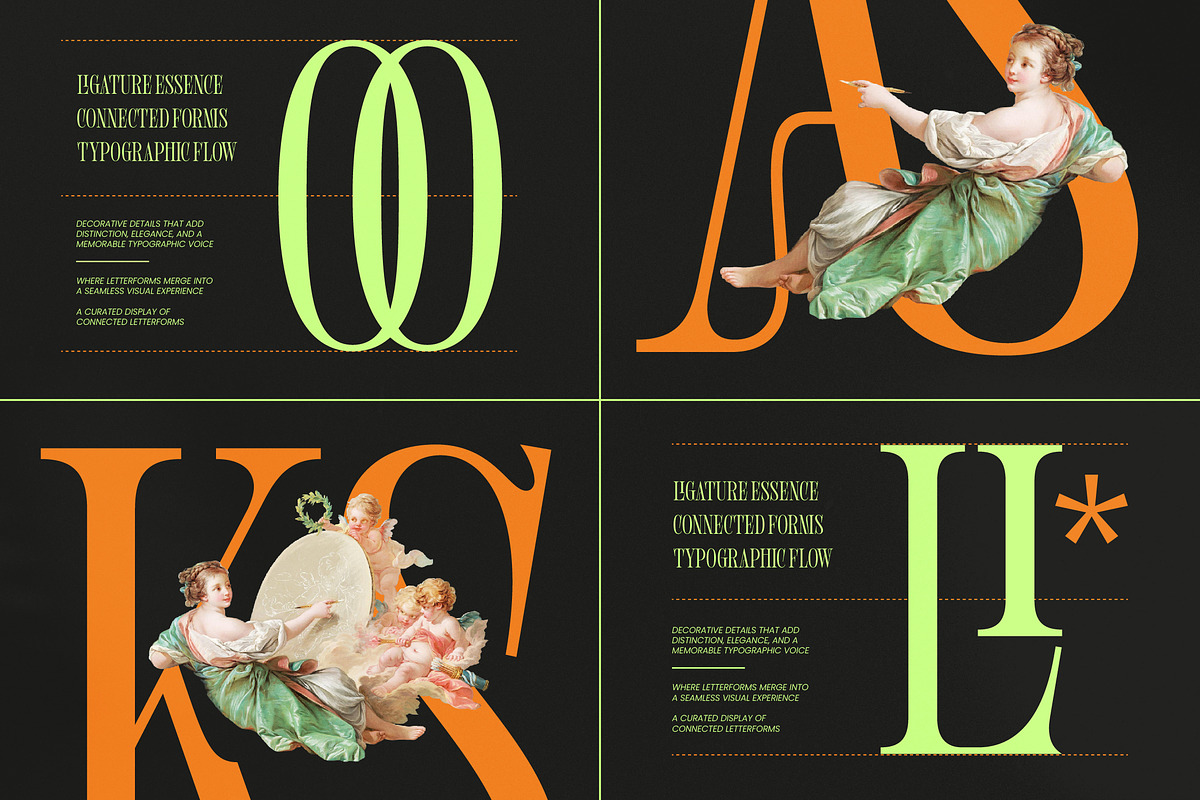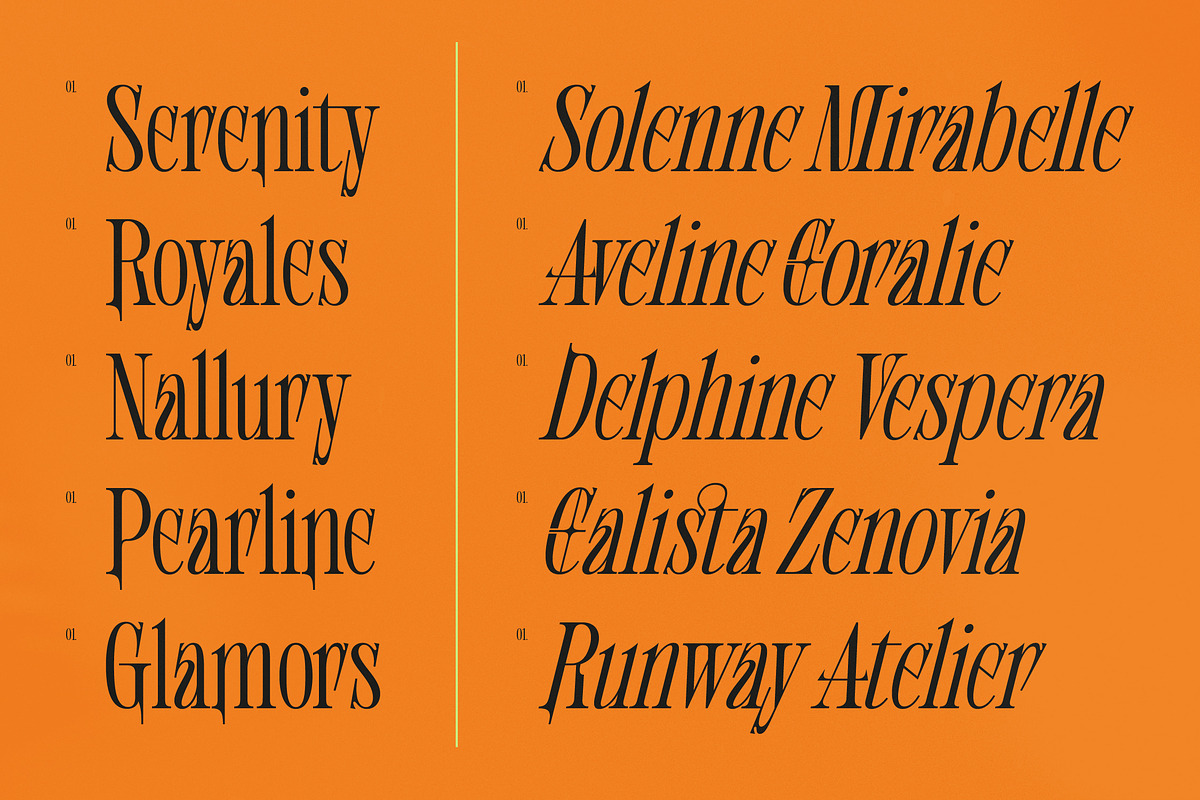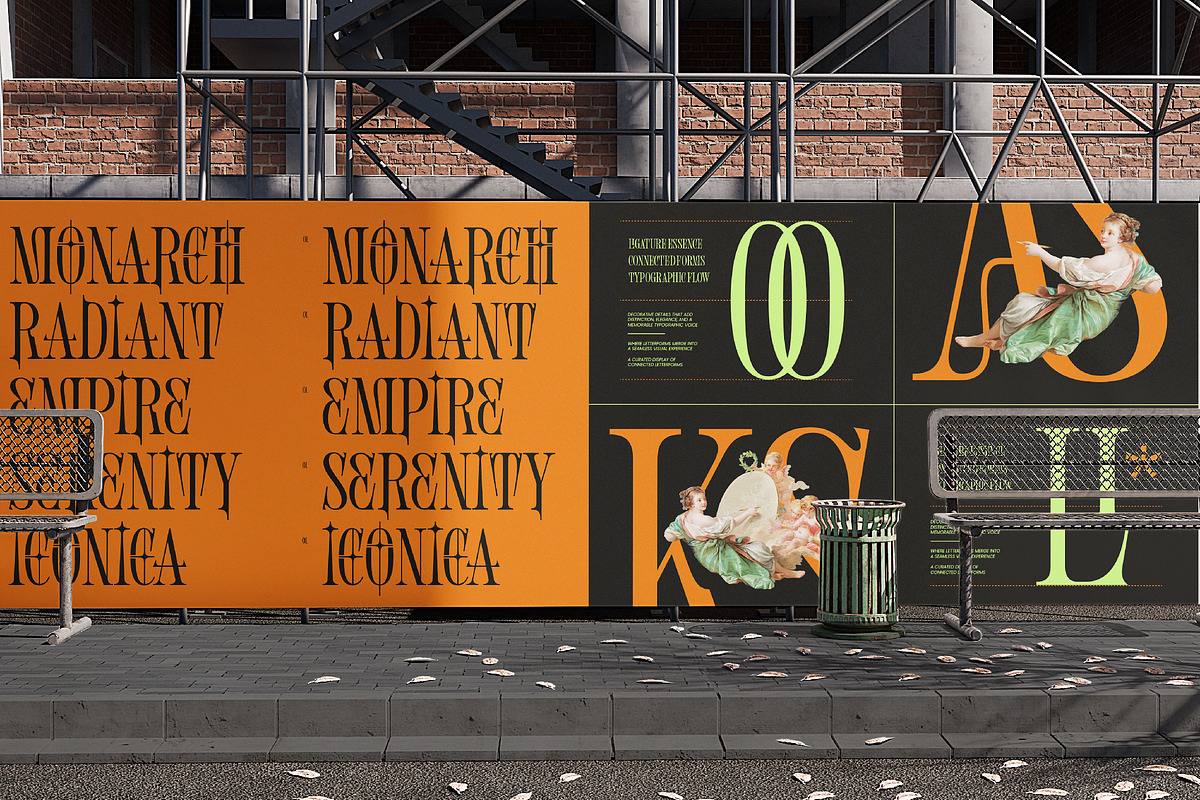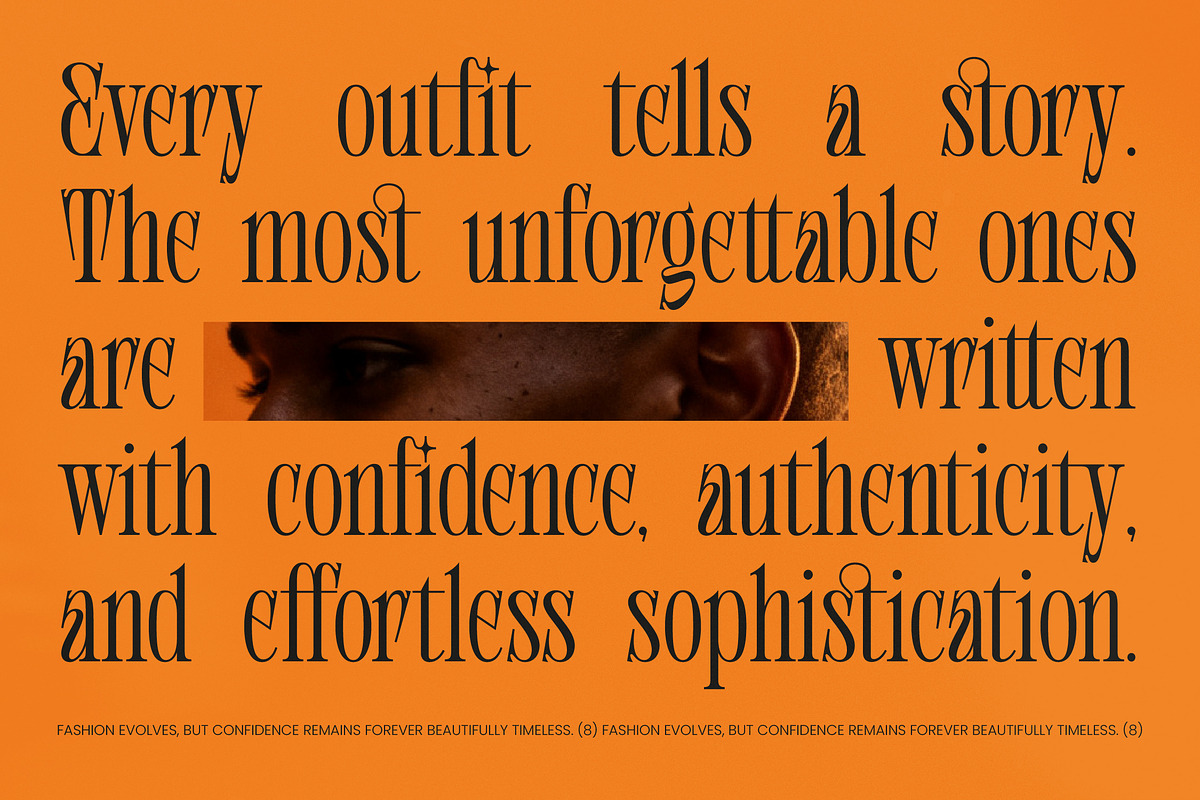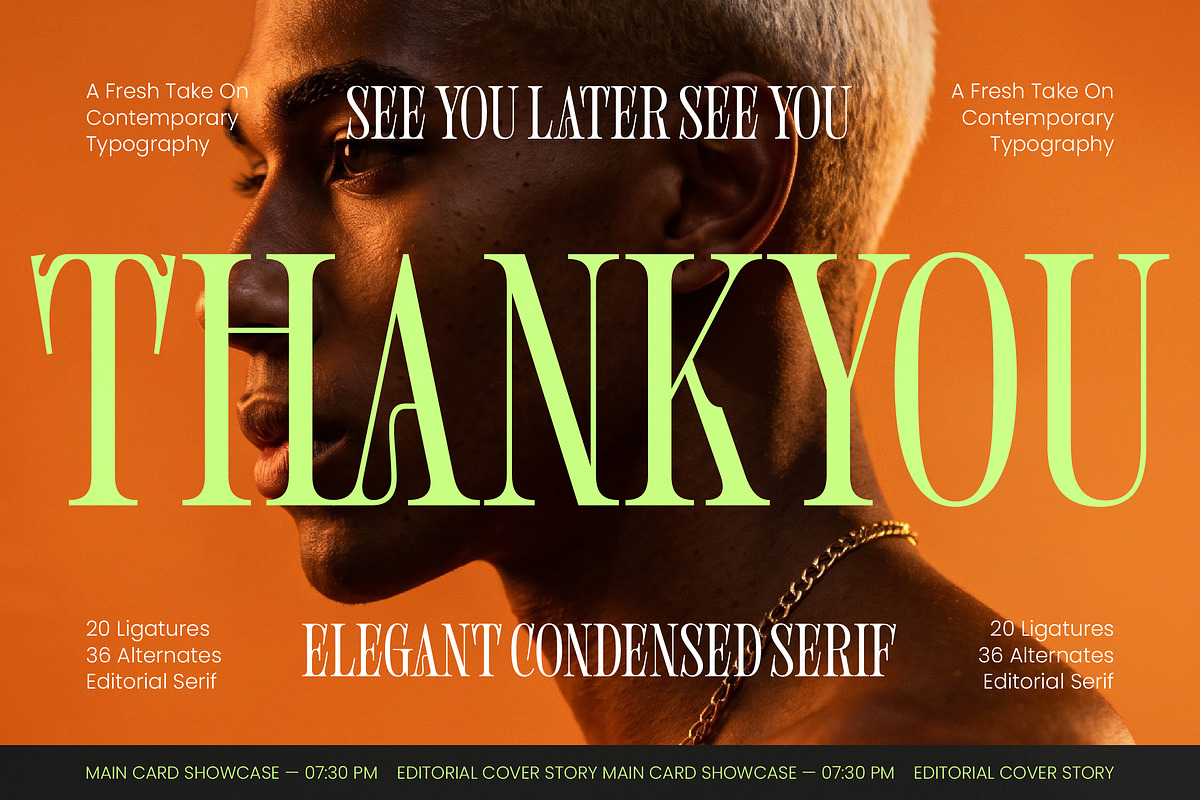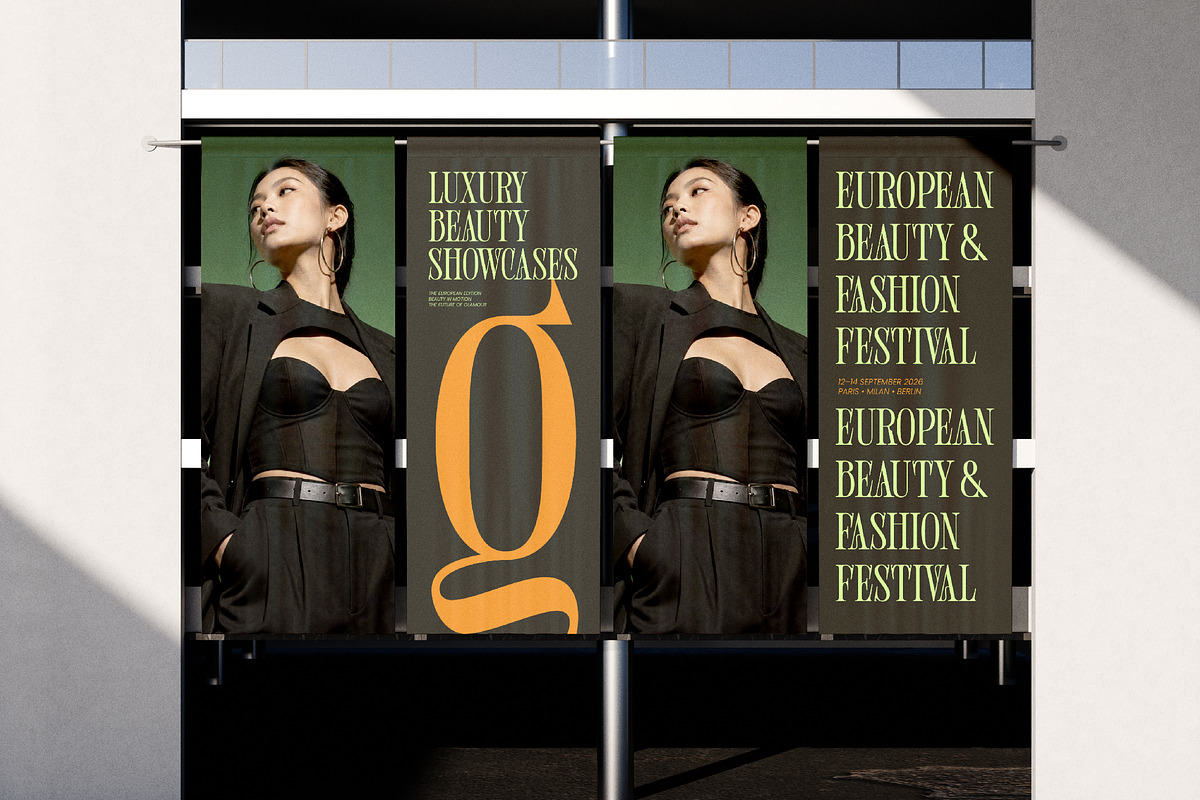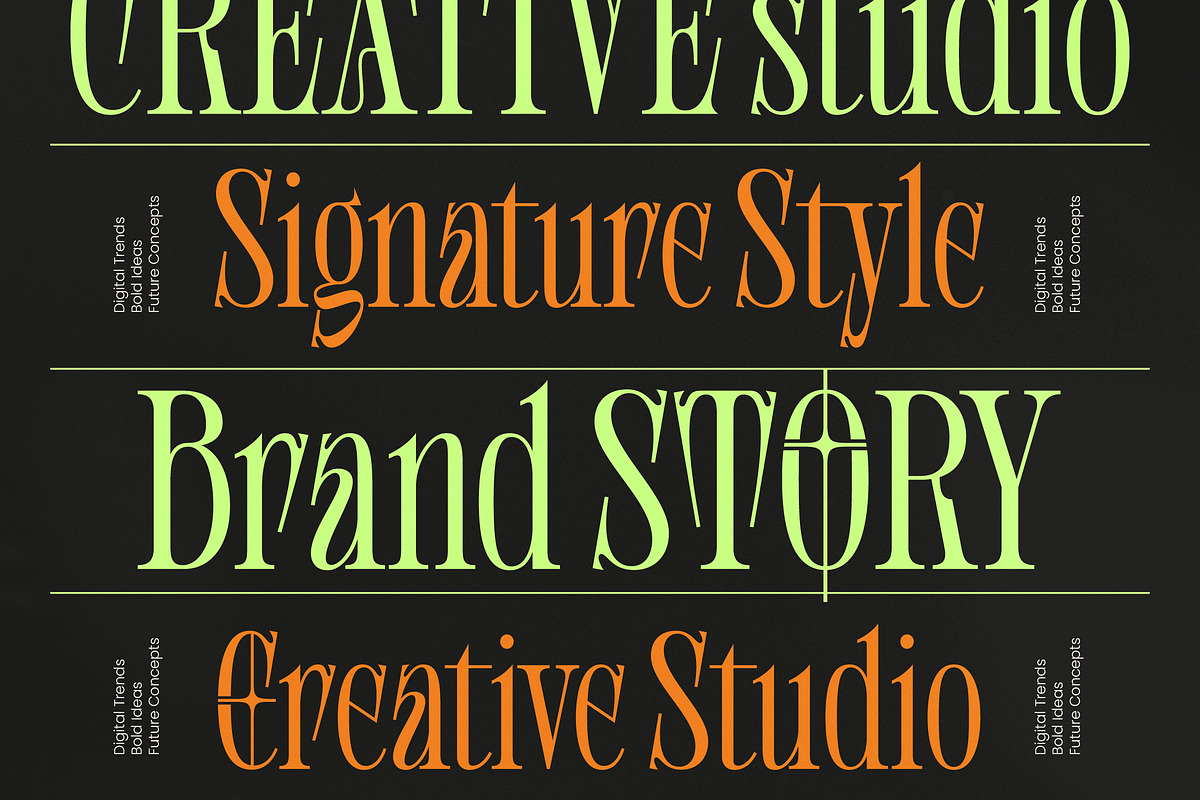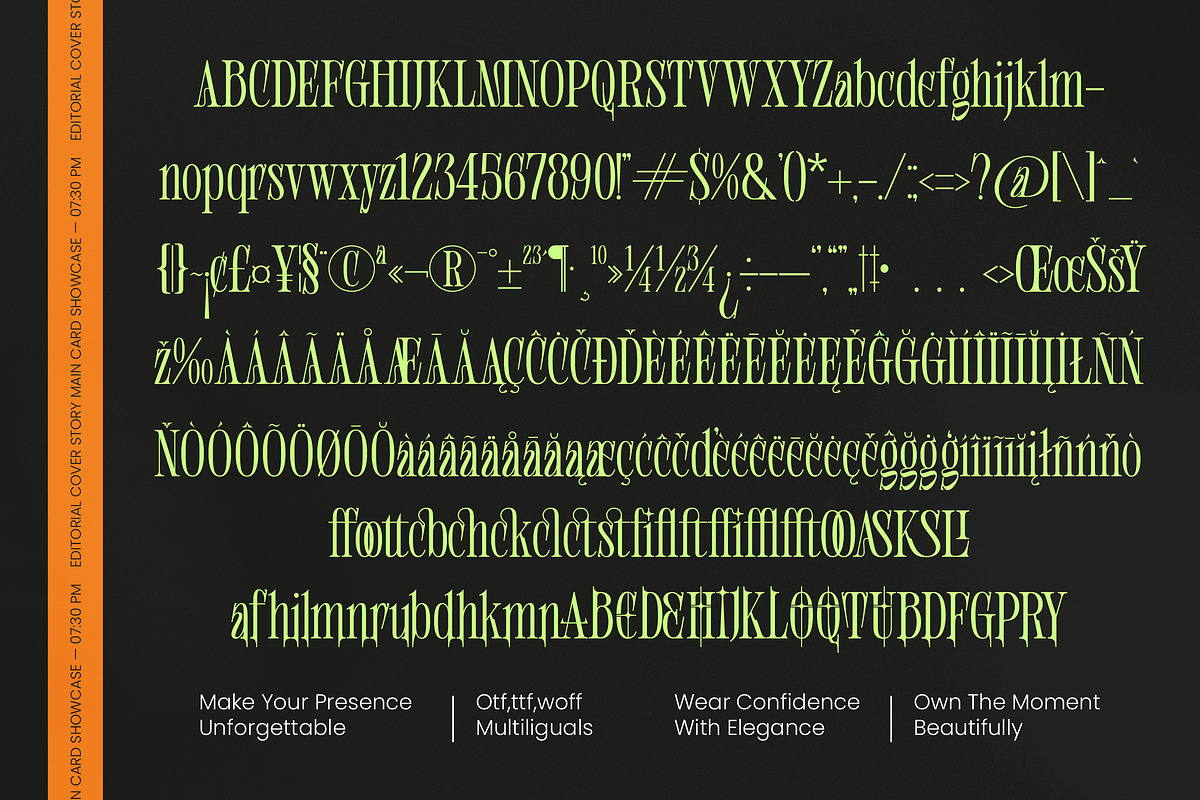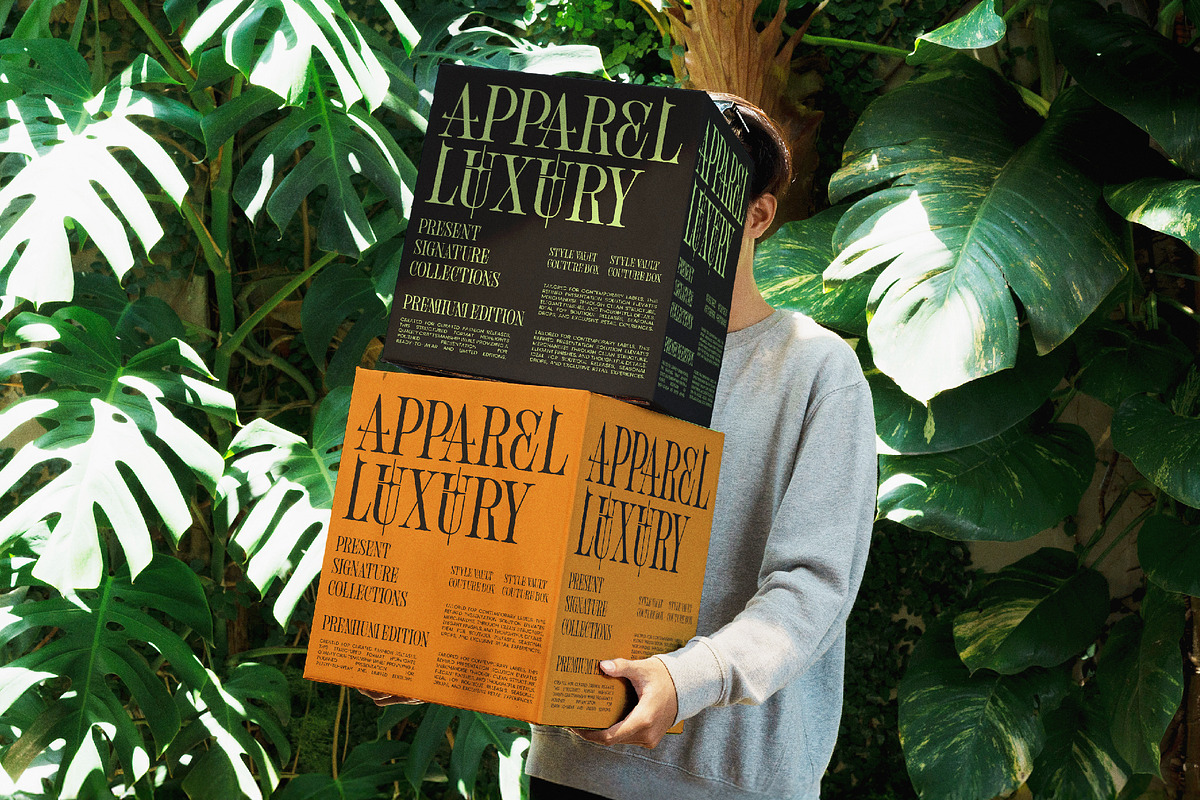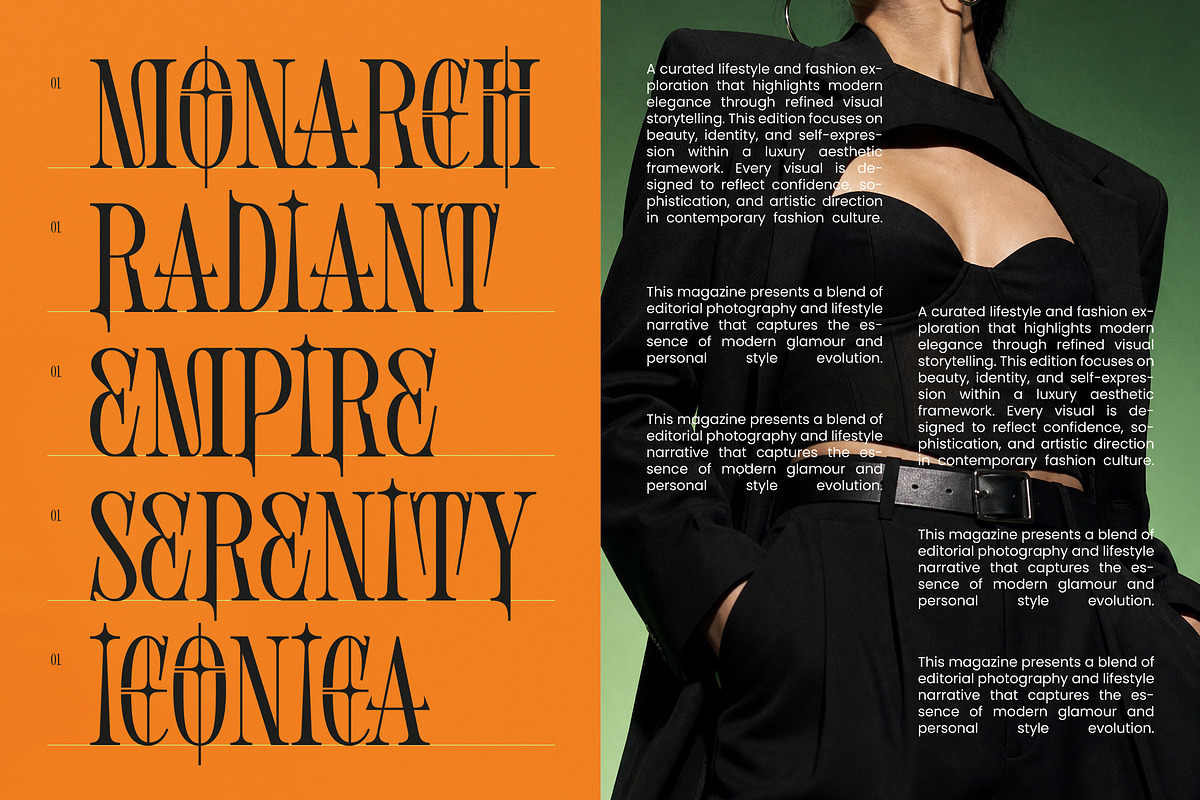
Shliterin Elegant Condensed Serif
Shliterin – Elegant Condensed Serif , Elevate your creative vision with a typeface that embodies high-fashion sophistication and modern elegance. Shliterin – Elegant Condensed Serif is a masterfully crafted editorial serif that combines high-contrast strokes with condensed proportions to create a commanding presence on any page. Its sharp serifs and contemporary flair ensure your text stands out with a premium aesthetic that is both timeless and cutting-edge.
Designed for maximum impact, this typeface is the ultimate choice for high-end visual communication and luxury branding. Shliterin – Elegant Condensed Serif is perfect for editorial layouts, fashion magazine covers, sophisticated packaging, and bold headlines that require a touch of class. Whether you are working on a boutique identity or a luxury product launch, this font provides the refined look necessary to captivate a discerning audience.
Global reach meets impeccable style in this versatile typographic solution, offering unparalleled flexibility for modern designers. With its extensive multilingual support, Shliterin – Elegant Condensed Serif adapts seamlessly across global markets, making it incredibly versatile for international projects. Featuring 20 unique ligatures and 36 character alternates, it empowers users to craft bespoke typography that maintains its professional integrity across diverse languages and platforms.
Secure a timeless and professional look that demands attention and communicates prestige through every character. Shliterin – Elegant Condensed Serif represents the pinnacle of contemporary typography, offering a unique visual rhythm that enhances any creative portfolio. Invest in this premium design asset to ensure your work radiates stylistic excellence and achieves a superior level of polish that resonates in today’s competitive market.